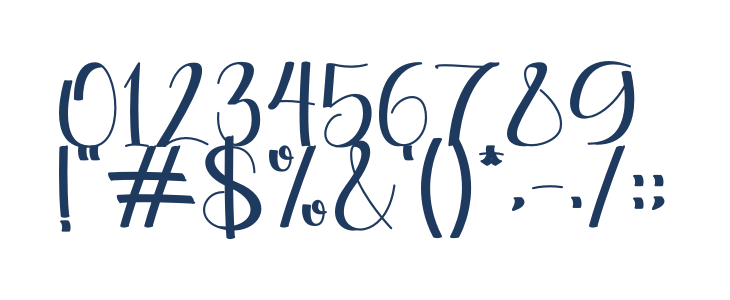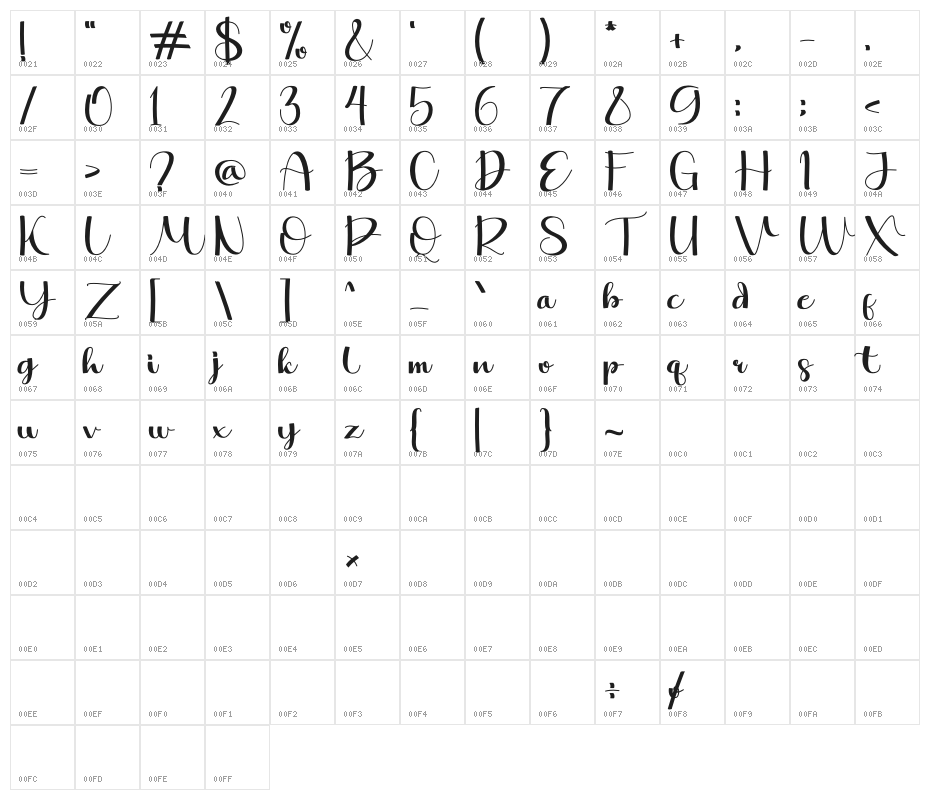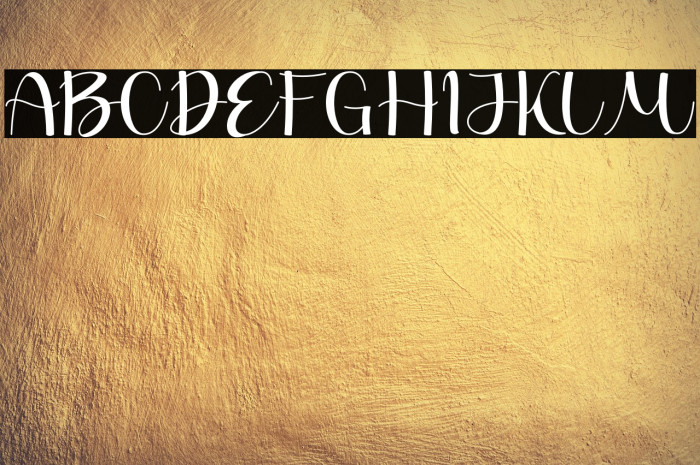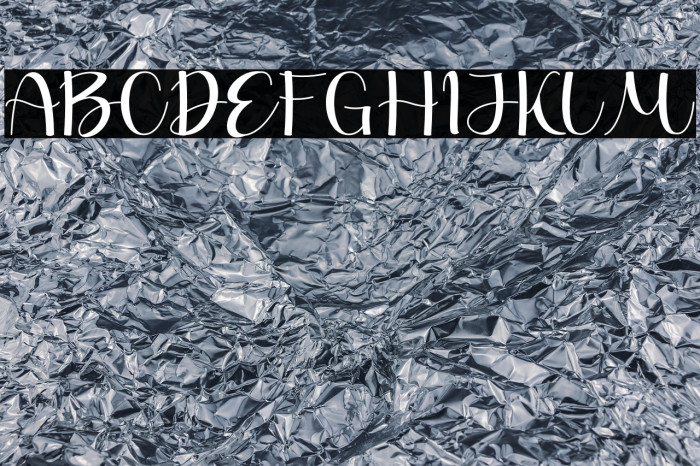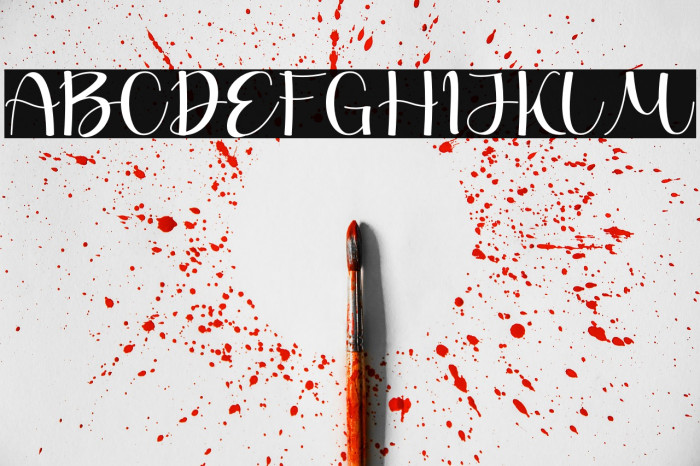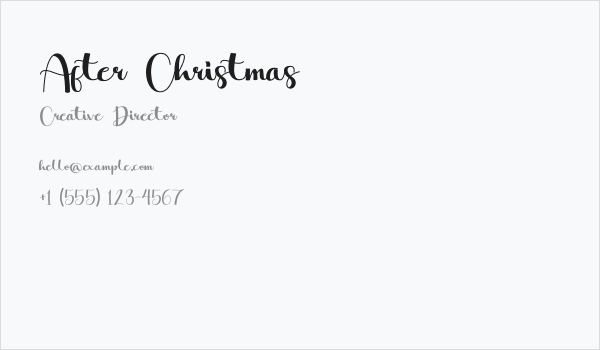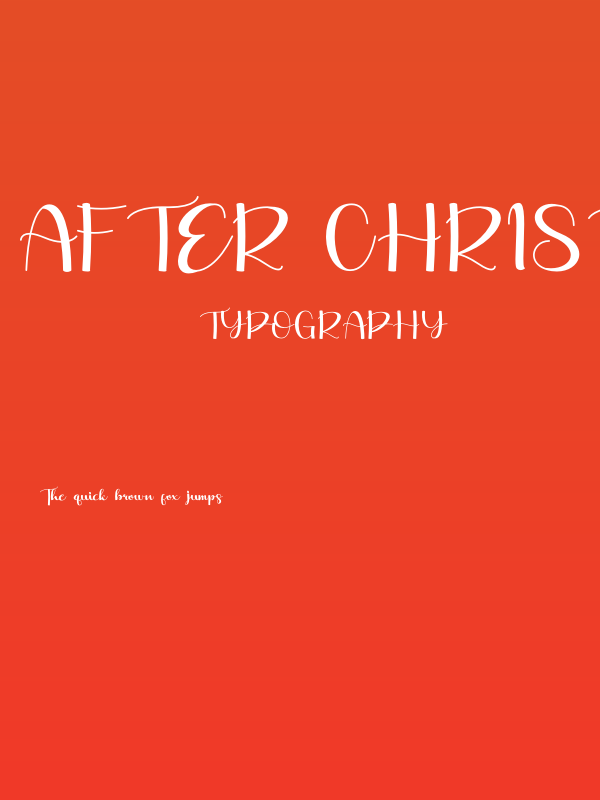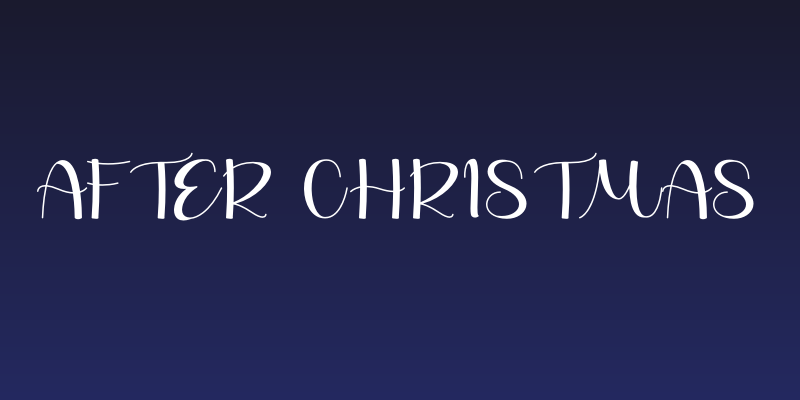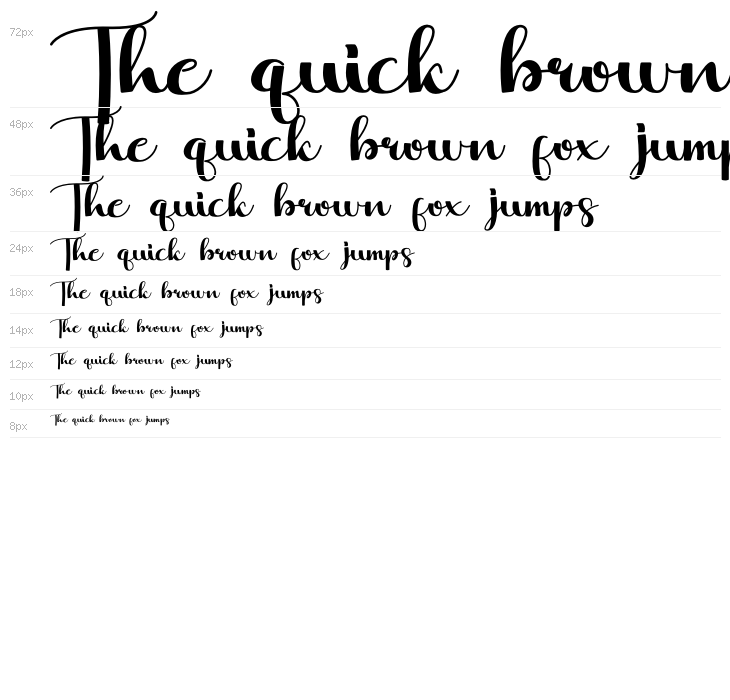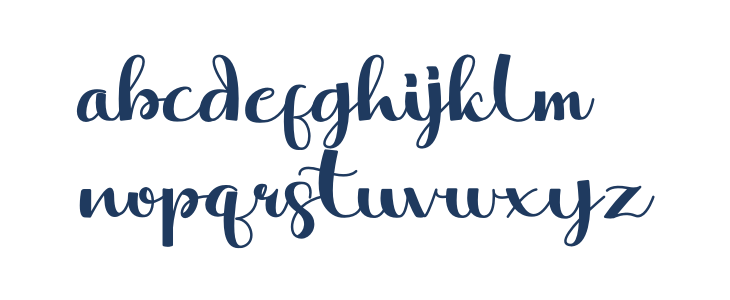
After Christmas Font
After Christmas Description
This font features a playful and elegant script style, characterized by its flowing and connected letterforms. The uppercase letters are tall and slender, with a slight slant that adds a dynamic feel. The lowercase letters are more rounded and bold, providing a nice contrast to the uppercase. The numbers are consistent with the overall style, maintaining the same playful curves. Special characters are uniquely designed, fitting seamlessly with the rest of the font. The strokes are smooth and consistent, with medium contrast that enhances readability while maintaining a decorative flair.